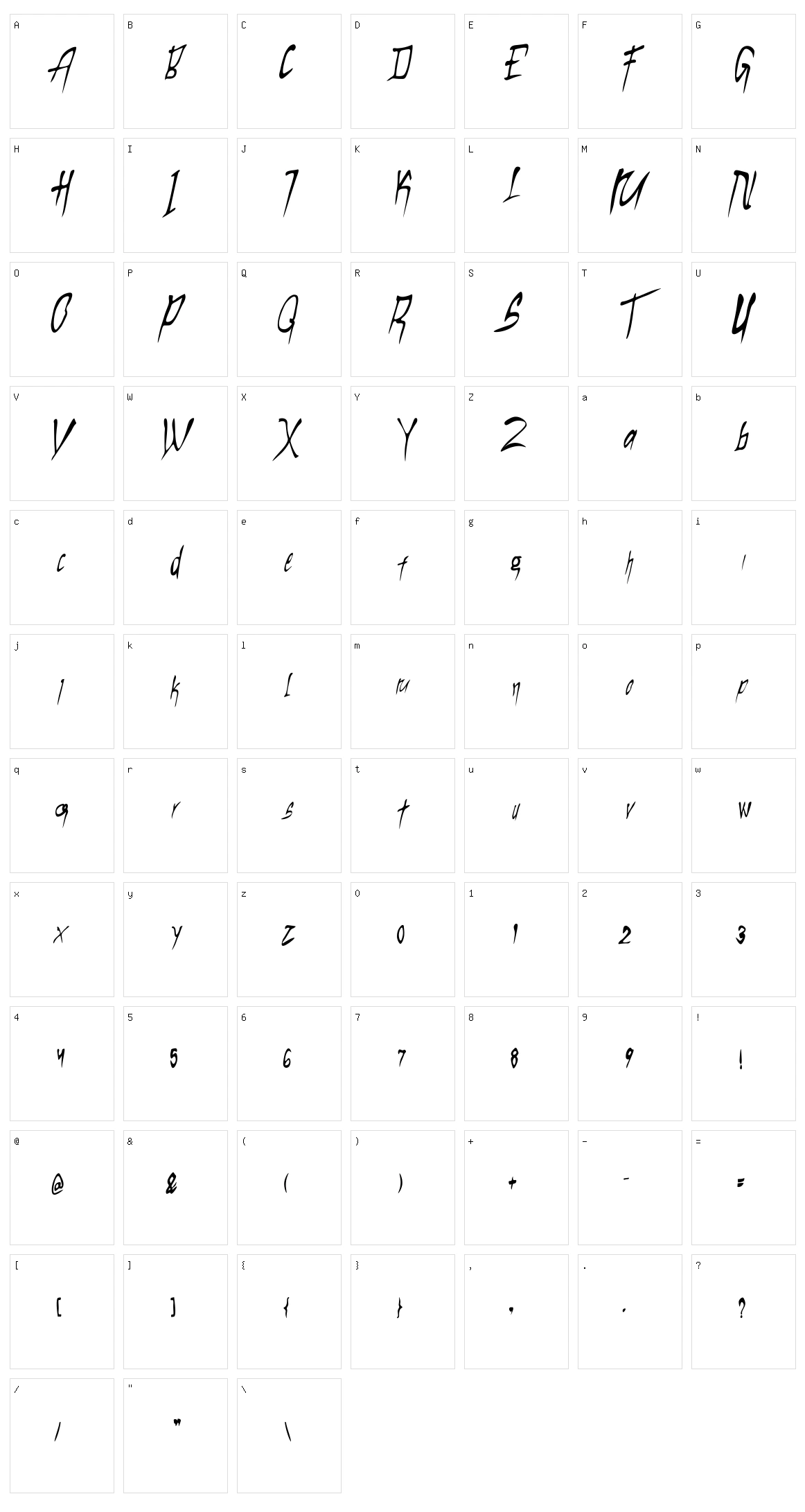
The free font Bregudul is carefully designed by twinletter, showcasing a thoughtful balance of creativity and usability and falls under the Horror font style. When you download the ZIP file, it contains only 22.85 KB of font files, making it lightweight and quick to download. Please review the license details below to understand permitted usage and distribution rights. If license information is not available, we recommend using this font for personal projects only or contacting the author directly for commercial usage permissions.